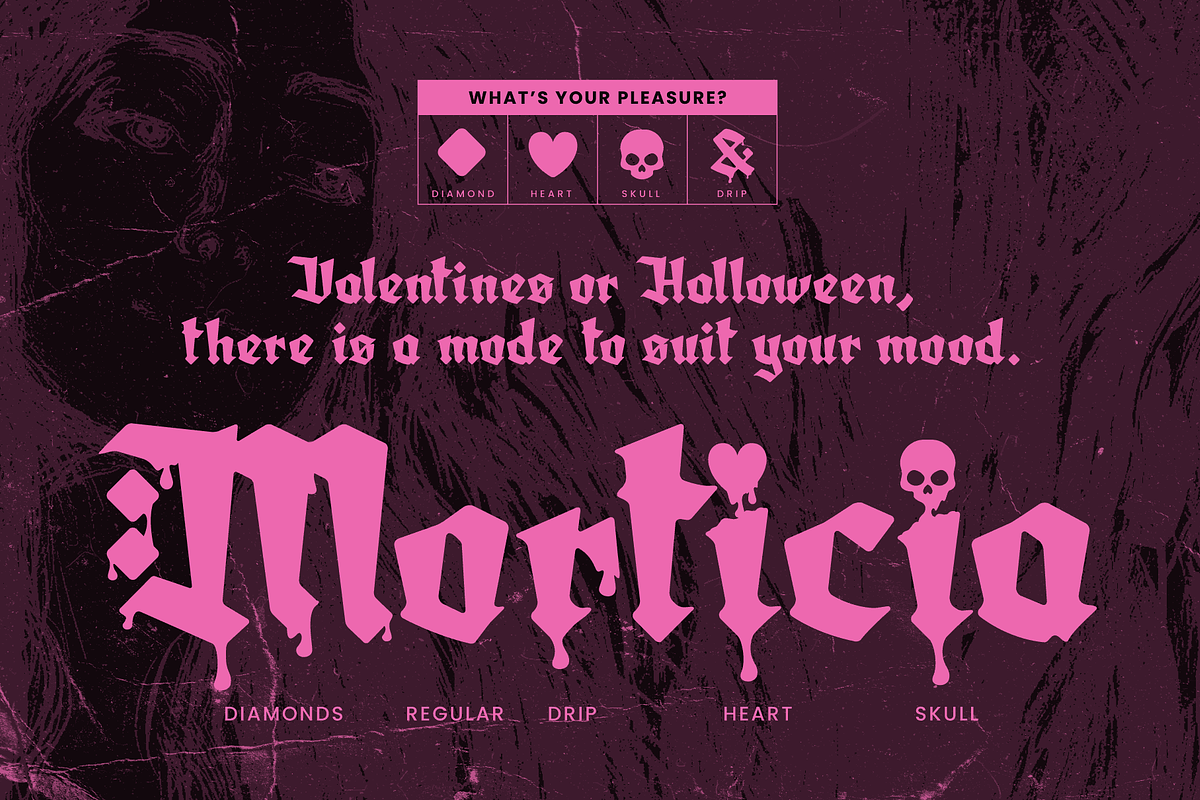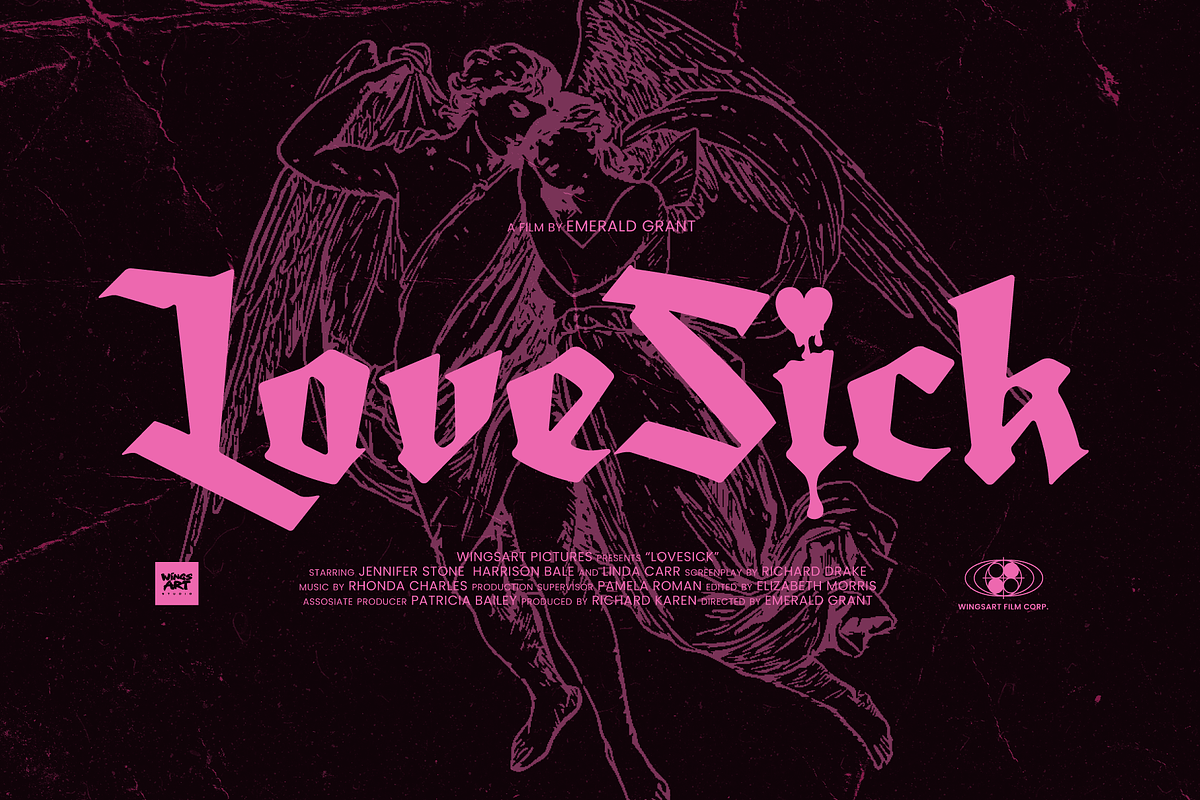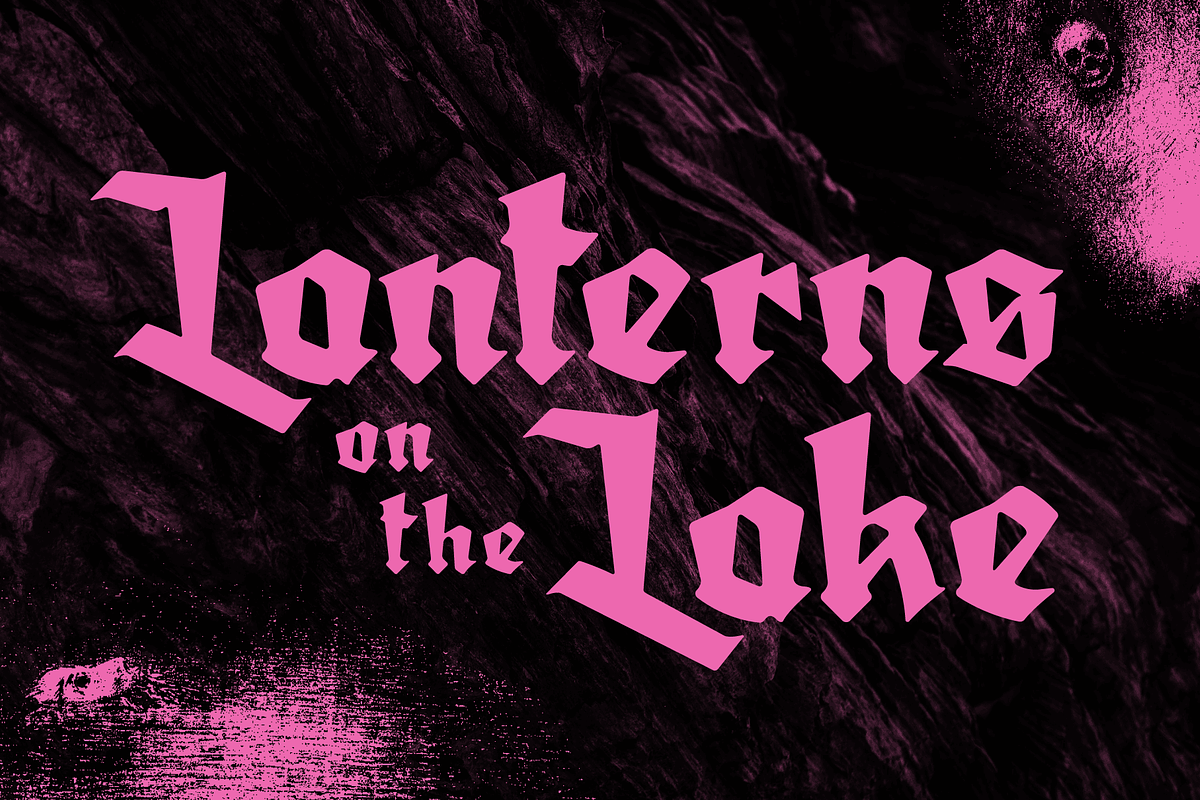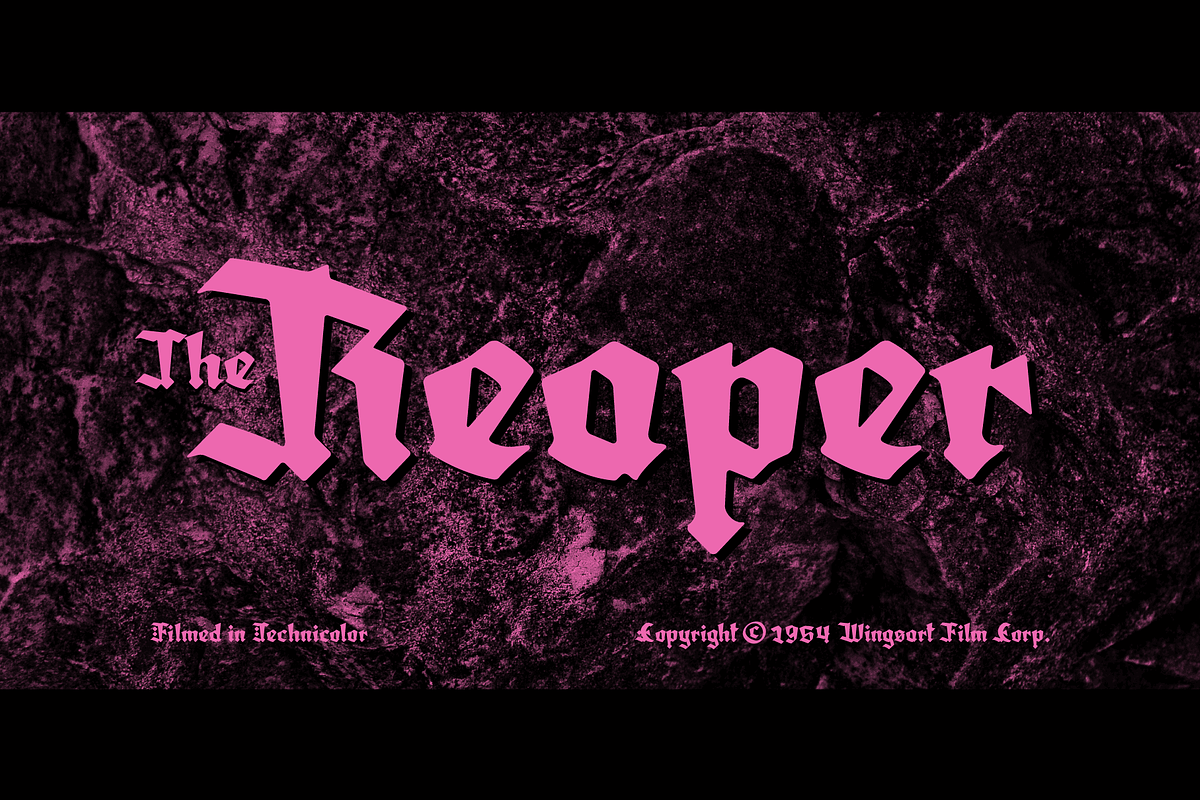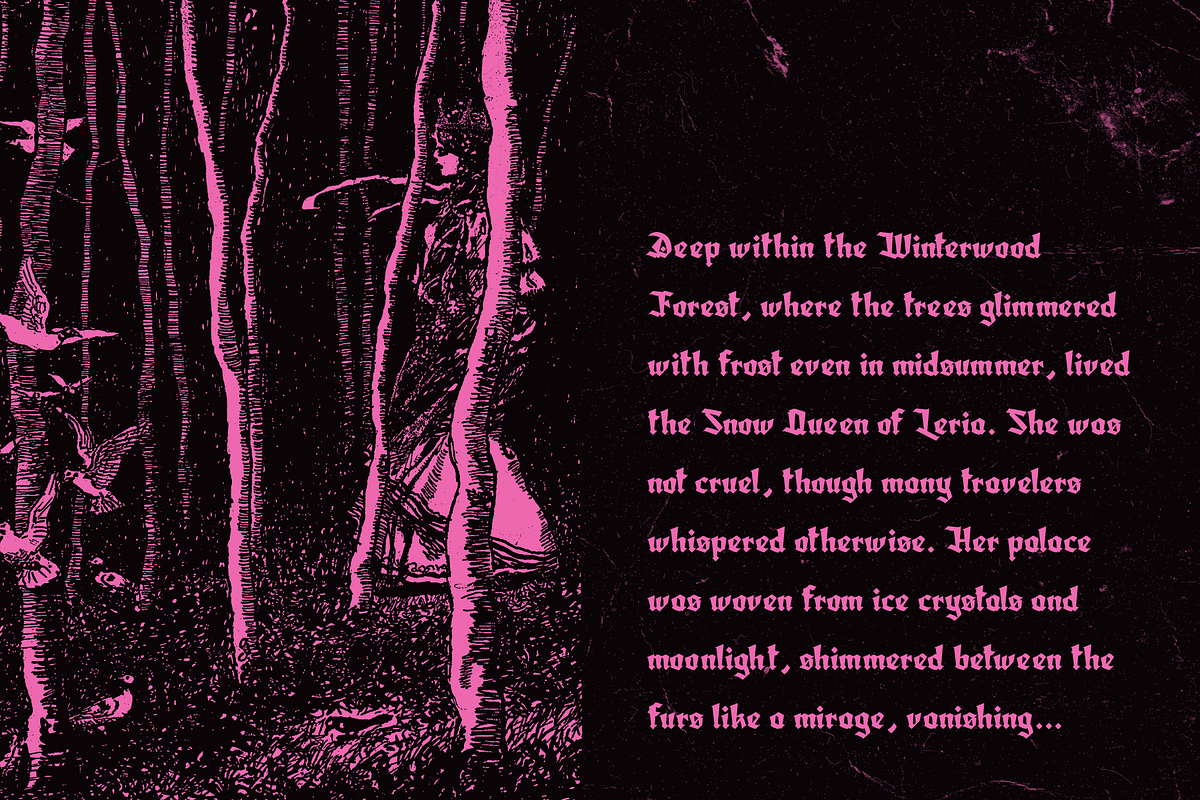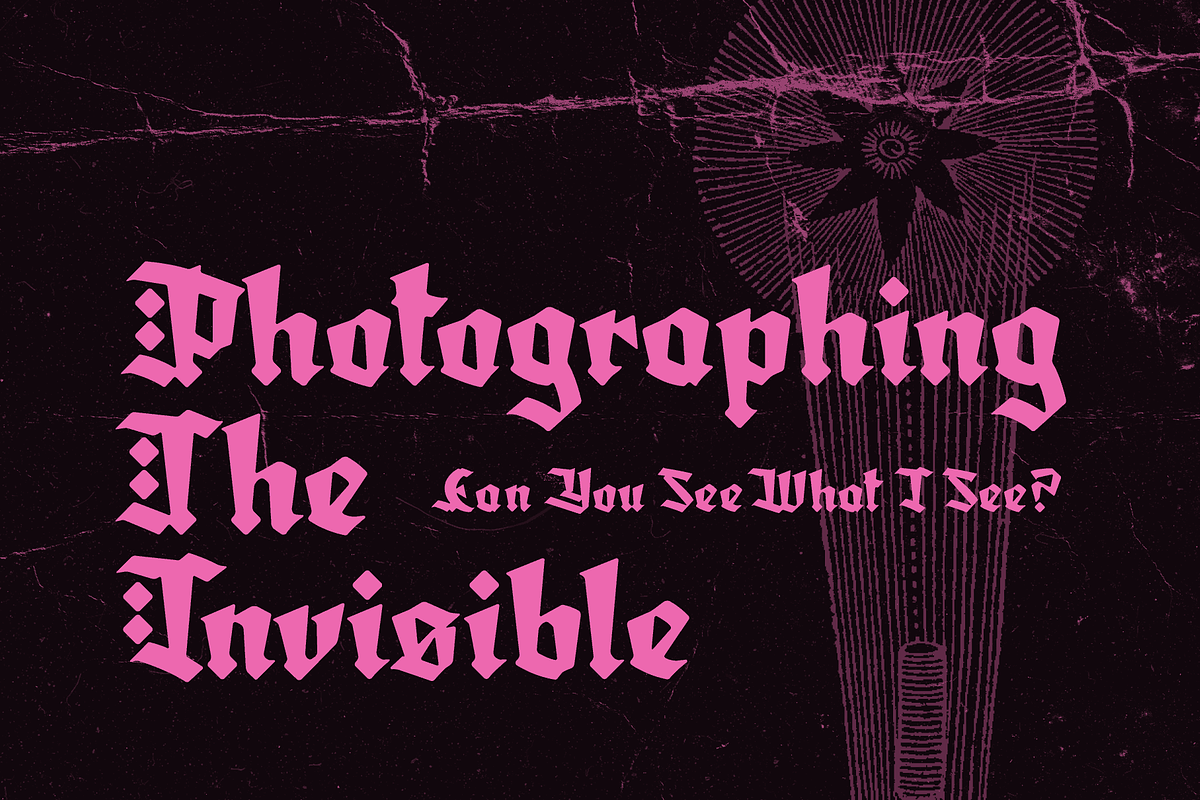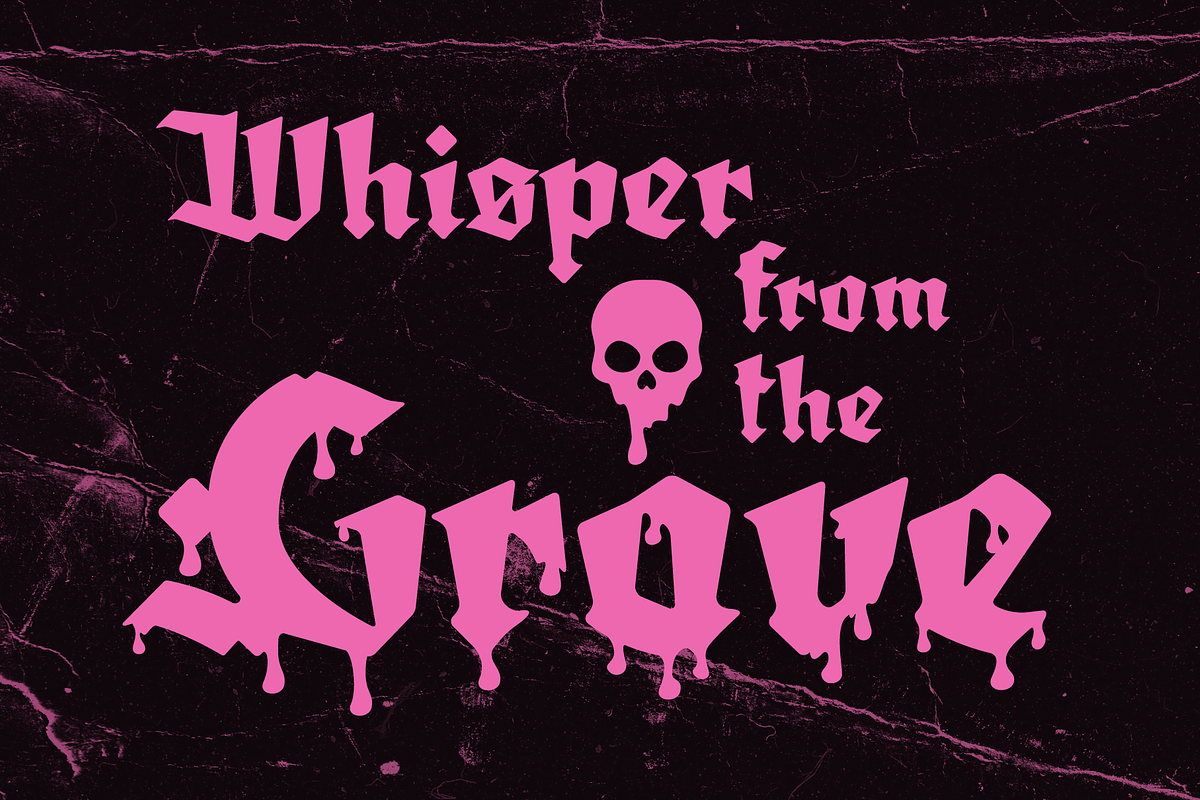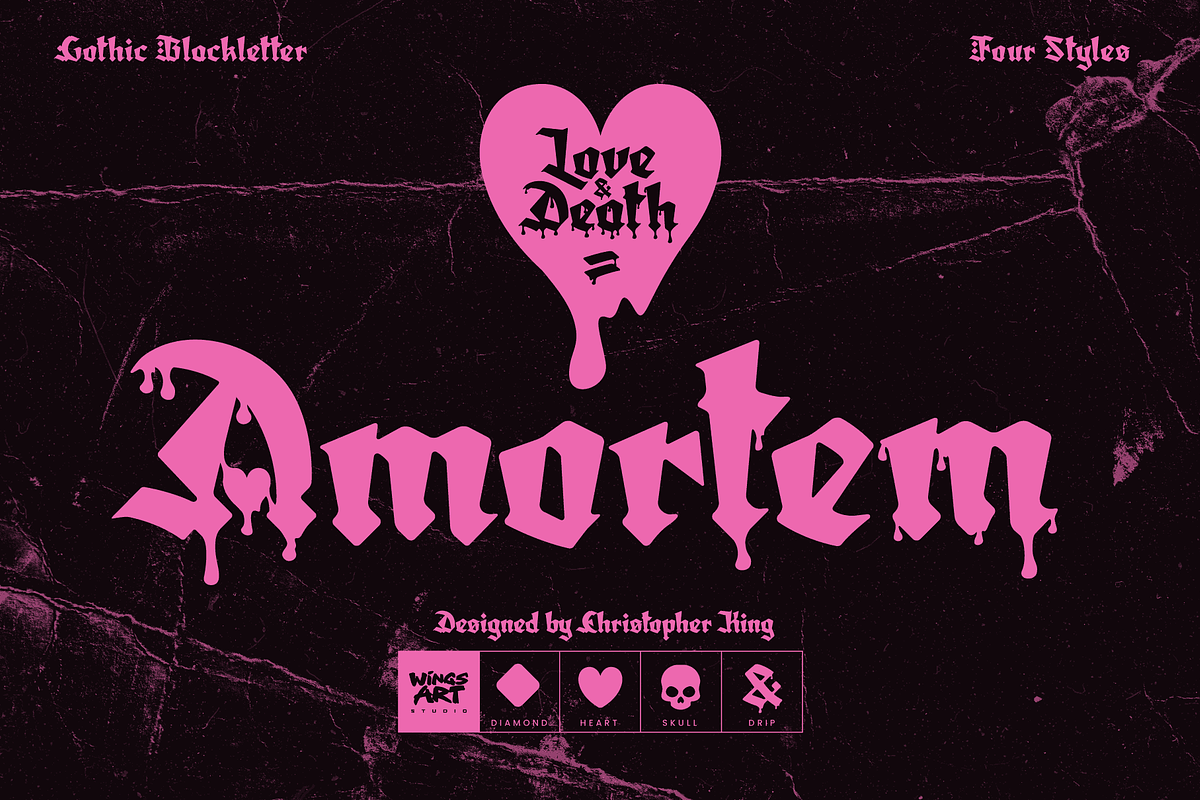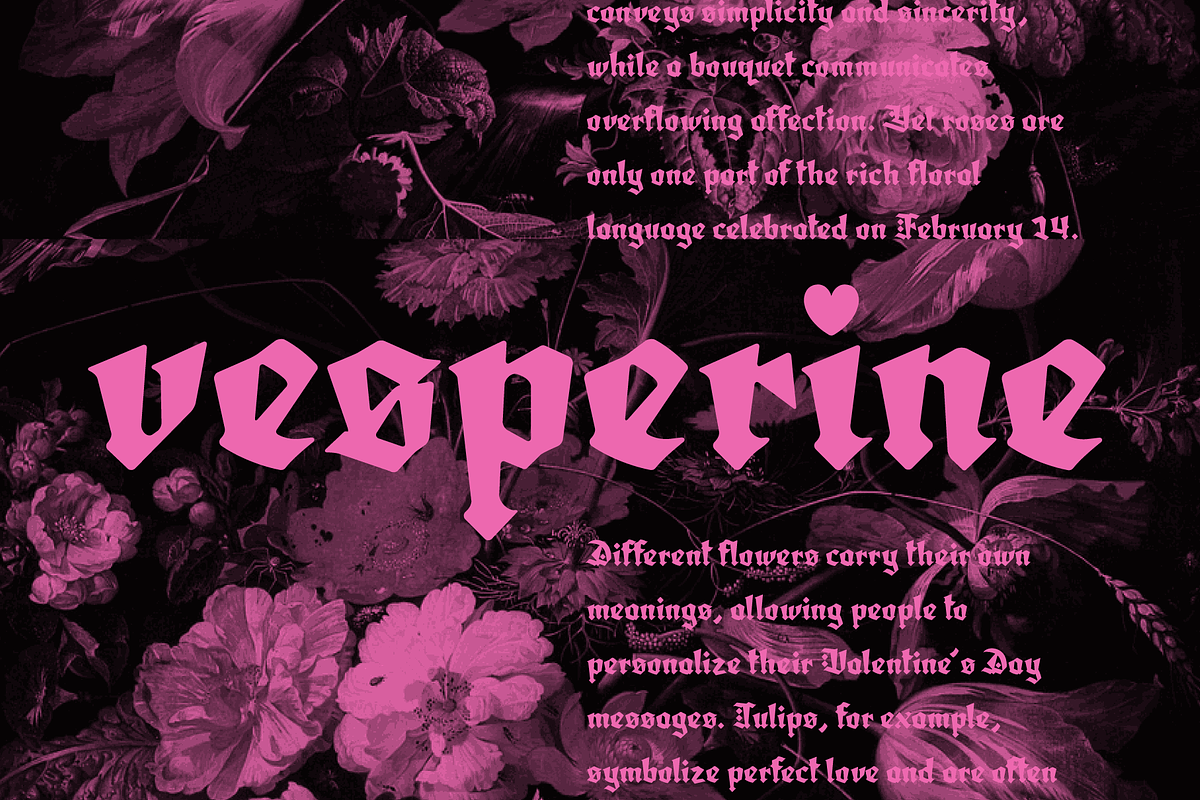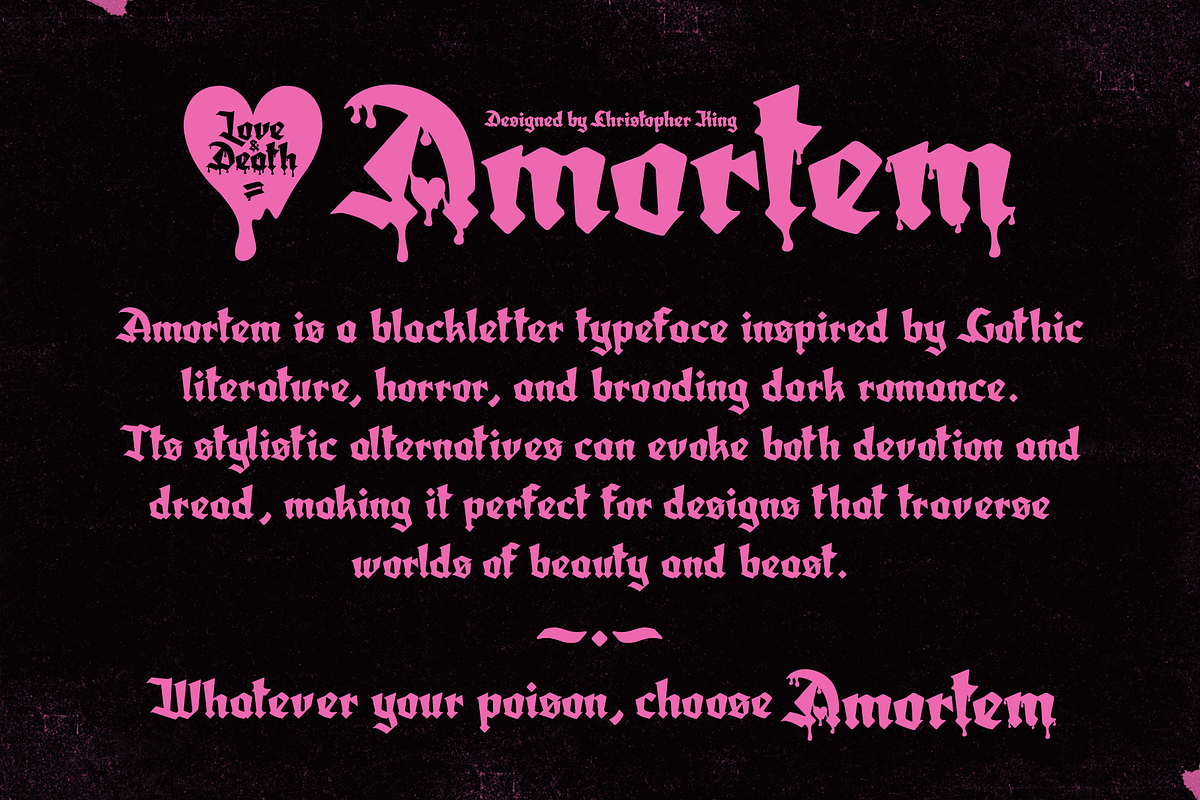
Amortem - Gothic Blackletter Font
Amortem - A Lovesick Gothic Blackletter from Valentines till Halloween.
Amortem is a blackletter typeface inspired by Gothic literature, horror, and brooding dark romance. Its stylistic alternatives can evoke both devotion and dread, making it perfect for designs that traverse worlds of beauty and beast.
Like a love poem from beyond the grave, Amortem speaks of a ghostly longing, or maybe cautionary tales passed through generations, ancient occult rituals, or the ever-present spectre of war. Its power lies in those who wield it and the truth that lies within.
The Amortem family includes four styles in both standard and drip versions, each with the stylistic alternatives: Regular, Diamond, Heart, and Skulls. All come with uppercase and lowercase characters, along with numerals, punctuation, and language support.
Valentines or Halloween, there’s a mode to suit your mood.
While its points appear razor-sharp, you'll notice a softer edge on close inspection, lending this blackletter a slightly aged appearance, improving legibility at large and small sizes. Great for film titles, album covers, posters, books, and cards, whatever your poison, choose Amortem.